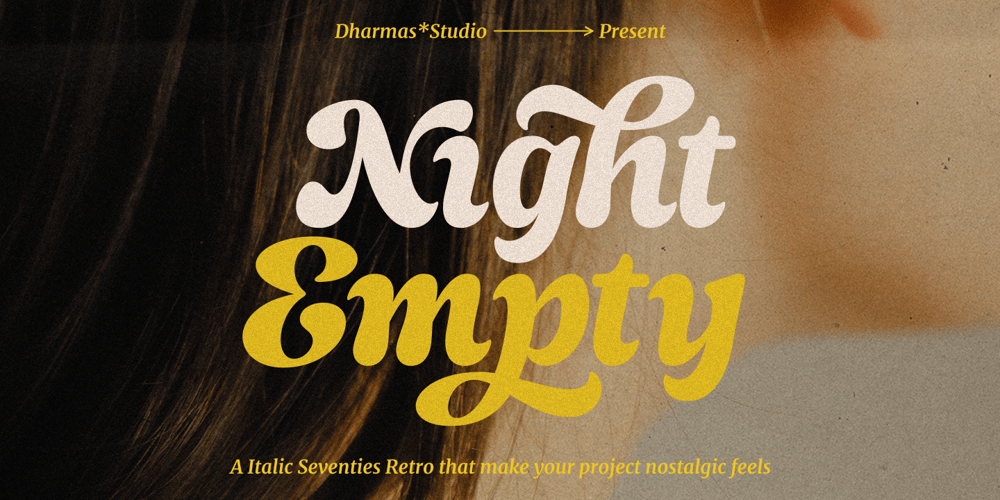
Night Empty Font Family was designed by Ahmad Jamaludin and published by Ahmad Jamaludin. Night Empty contains 1 styles and family package options. We’re presenting our new italic seventies retro font, Night Empty!Night Empty – A Italic Seventies Retro that has both retro and soft bold italic. This font has smooth curves and clean lines to make your project more nostalgic feels. This font will make your project looks retro, chic, and presentable.Night Empty – Have 37 beautiful alternates and ligatures which consist of 4 stylistic sets. Comes with alternatives and ligatures, and helps to create stunning logos, quotes, posts, blog posts, branding projects, magazine imagery, wedding invitations, and much more.Super-versatile, have a scroll through all the previews to see how wide the range of uses that can be with Night Empty, it’s so limitless!What you get : Letters, numbers, symbols, and punctuation Has 37 beautiful alternates and ligatures Use in many programs even in Canva Multilingual Support Language Support: Danish, English, Estonian, Filipino, Finnish, French, Friulian, Galician, German, Gusii, Indonesian, Irish, Italian, Luxembourgish, Norwegian Bokmål, Norwegian Nynorsk, Nyankole, Oromo, Portuguese, Romansh, Rombo, Spanish, Swedish, Swiss-German, Uzbek (Latin)Come and say hello over on Instagram! https://www.instagram.com/dharmas.studio/Dharmas Studio